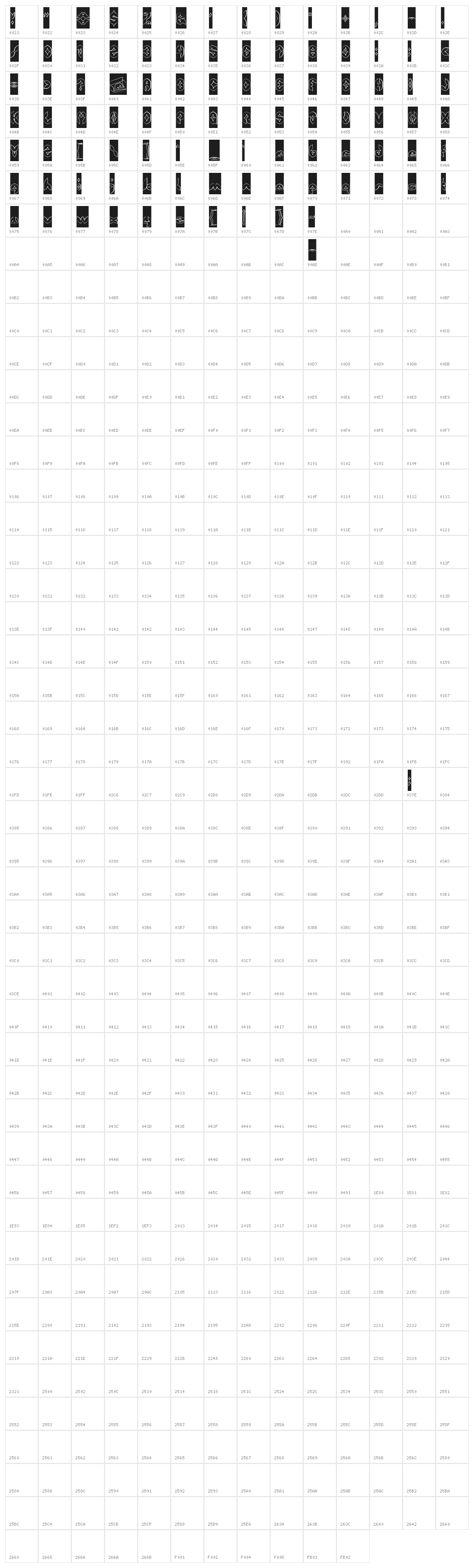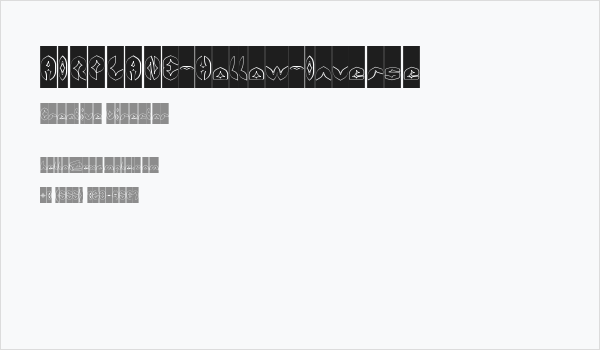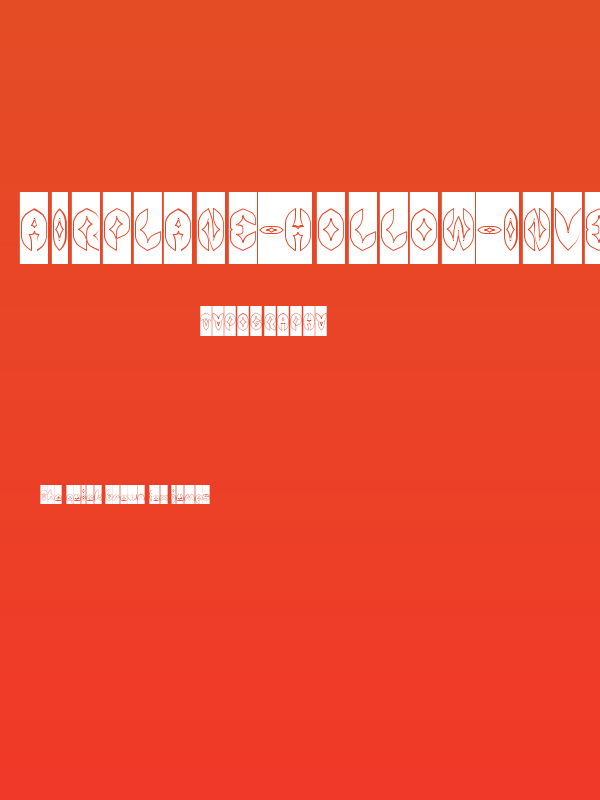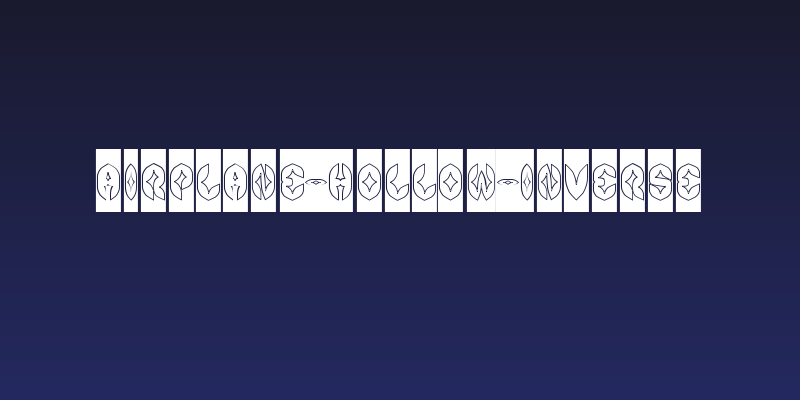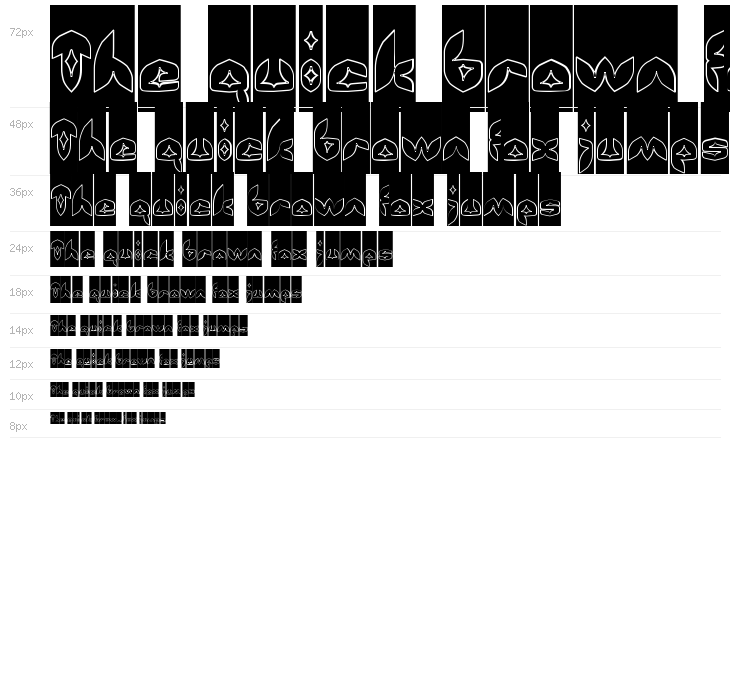
AIRPLANE-Hollow-Inverse Font
AIRPLANE-Hollow-Inverse Description
This font features a unique hollow design with an inverse style, where the characters are outlined with a bold, white stroke against a black background. The letters are stylized with geometric shapes and sharp angles, creating a futuristic and abstract appearance. Each character is distinct, with some incorporating symmetrical patterns and others featuring asymmetrical designs. The numbers and special characters follow the same stylistic approach, maintaining consistency throughout the set. This font is visually striking and stands out due to its unconventional and artistic presentation.
| Use Case | Logos, Posters, Digital Art |
| Proposed Projects | Ideal for sci-fi themed projects, modern art posters, digital artwork, and branding for tech companies. |